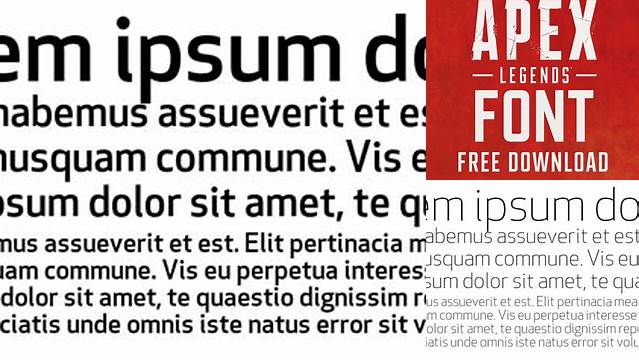
Apex New Medium Font: Free Download & Usage Guide
Are you a design enthusiast or a content creator looking to enhance your projects with a modern and stylish font? Look no further! The Apex New Medium font is a versatile typeface that can add a touch of sophistication and clarity to your work. In this comprehensive guide, we'll dive into everything you need to know about this fantastic font, including where to find an Apex New Medium Font Free Download, its unique characteristics, and how to effectively use it in your various design projects. So, let's get started and discover how this font can elevate your creative endeavors!
What is Apex New Medium Font?
When discussing Apex New Medium font, it's essential to understand its origins and design principles. Apex New Medium is a contemporary sans-serif typeface known for its clean lines, balanced proportions, and excellent readability. Sans-serif fonts, like Apex New Medium, are characterized by the absence of serifs, which are the small decorative strokes at the end of letterforms found in serif fonts like Times New Roman. This gives sans-serif fonts a more modern and minimalist appearance, making them ideal for a wide range of applications, from digital interfaces to print materials.
The Apex New Medium font was carefully crafted to strike a balance between functionality and aesthetics. Its letterforms are designed with precision, ensuring clarity and legibility even at smaller sizes. This makes it a great choice for body text, headlines, and captions. The 'Medium' weight of the font refers to its thickness, which is neither too light nor too bold, providing a versatile middle ground that works well in various contexts. The clean and simple design of Apex New Medium makes it incredibly versatile. It can be used in a variety of projects, from websites and mobile apps to logos and branding materials. Its neutral yet stylish appearance allows it to seamlessly blend into different design styles, whether you're going for a minimalist, modern, or even a more playful look. The font’s balanced design ensures that it doesn’t overpower other elements in your design, but rather complements them, creating a cohesive and visually appealing final product. This adaptability is one of the key reasons why Apex New Medium has become a popular choice among designers and content creators alike. Its ability to maintain clarity and readability across different platforms and sizes further enhances its appeal, making it a reliable option for projects ranging from large-scale print materials to small-screen digital displays. Ultimately, Apex New Medium's blend of modern aesthetics and functional design makes it a standout choice for anyone looking to elevate their visual communication.
Key Characteristics of Apex New Medium
To truly appreciate the Apex New Medium font, it's important to understand its key characteristics. First and foremost, the font boasts exceptional readability. The letterforms are meticulously designed to ensure each character is distinct and easily recognizable, even at smaller sizes. This makes it a fantastic choice for body text, where legibility is paramount. The spacing between letters and words is also carefully considered, contributing to a comfortable reading experience. Another defining feature of Apex New Medium is its clean and modern aesthetic. The absence of serifs gives it a contemporary feel, making it well-suited for designs that aim to convey a sense of sophistication and simplicity. The font’s clean lines and uncluttered appearance make it a versatile option that can seamlessly integrate into various design styles. It's equally at home in minimalist designs as it is in more complex layouts, offering a level of flexibility that many other fonts lack. Furthermore, the Medium weight of Apex New Medium strikes a perfect balance between being too light and too bold. This ensures that the font is prominent enough to make an impact without being overwhelming. The consistent stroke thickness throughout the letterforms adds to its visual harmony, making it a pleasure to look at and work with. This balance is particularly useful in designs where you need a font that can stand out without dominating the overall composition. In addition to its aesthetic qualities, Apex New Medium is also known for its versatility across different platforms and mediums. It performs exceptionally well both in print and on digital screens, making it a reliable choice for a wide range of projects. Whether you're designing a website, creating marketing materials, or crafting a presentation, Apex New Medium will maintain its clarity and visual appeal. This cross-platform compatibility is a significant advantage, ensuring that your designs look consistent and professional regardless of the medium.
How to Use Apex New Medium Font in Your Projects
Once you've secured your Apex New Medium font (or a suitable alternative), the next step is to put it to good use! This versatile font can enhance a wide range of projects, from website design to branding materials. Understanding how to effectively incorporate it into your work will help you create visually appealing and professional designs. One of the most common applications for Apex New Medium is in web design. Its clean lines and excellent readability make it an ideal choice for both headings and body text. Using Apex New Medium for your website’s content can create a modern and user-friendly experience for your visitors. The font's clarity ensures that your text is easy to read on screens of all sizes, which is crucial for maintaining engagement and reducing bounce rates. When using Apex New Medium on a website, consider pairing it with other fonts to create visual contrast and hierarchy. For example, you might use Apex New Medium for headings and subheadings, and then choose a different font for body text. Alternatively, you could use different weights of Apex New Medium (such as bold or light) to create visual interest and structure. Another area where Apex New Medium shines is in branding. Its professional and modern aesthetic makes it well-suited for logos, business cards, and other marketing materials. A consistent use of Apex New Medium across your branding can help create a cohesive and recognizable brand identity. When designing a logo, the simplicity and clarity of Apex New Medium can help ensure that your logo is legible and memorable. For business cards and letterheads, the font’s readability will ensure that your contact information is easily accessible. In addition to web design and branding, Apex New Medium can also be used effectively in print materials. Its clean design works well in brochures, flyers, posters, and even books. The font's legibility makes it a great choice for lengthy documents, ensuring that readers can comfortably engage with your content. When using Apex New Medium in print, pay attention to the font size and spacing. Choosing the right size and ensuring adequate spacing between lines and letters will enhance readability and create a visually appealing layout. Ultimately, the key to using Apex New Medium effectively is to leverage its versatility and clarity. Whether you're designing a website, creating branding materials, or working on a print project, this font can help you achieve a polished and professional look. By understanding its strengths and experimenting with different applications, you can unlock the full potential of Apex New Medium and elevate your designs.
Tips for Effective Font Usage
To truly master the art of typography and make the most of fonts like Apex New Medium font, it’s essential to understand some key principles of effective font usage. These tips can help you create designs that are not only visually appealing but also highly functional and easy to read. One of the most fundamental tips is to limit the number of fonts you use in a single project. A general rule of thumb is to stick to two or three fonts at most. Using too many fonts can create a cluttered and confusing design, detracting from your message. Instead, focus on selecting a few fonts that complement each other and using them consistently throughout your project. Another crucial aspect of font usage is hierarchy. Font hierarchy refers to the way you use different font sizes, weights, and styles to create a visual structure and guide the reader's eye through your design. Using larger and bolder fonts for headings and subheadings, and smaller fonts for body text, can help organize your content and make it easier to digest. Consistency is another key element of effective font usage. Once you've chosen your fonts and established a hierarchy, it’s important to use them consistently throughout your project. This creates a sense of unity and professionalism. Avoid randomly switching fonts or styles, as this can make your design look disjointed. Legibility should always be a top priority when choosing and using fonts. No matter how beautiful a font may be, if it’s difficult to read, it’s not a good choice. Opt for fonts that are clear and easy to read, especially for body text. Consider factors such as font size, line height, and letter spacing to ensure optimal readability. Kerning and tracking are two important typographic adjustments that can significantly impact the appearance of your text. Kerning refers to the spacing between individual letters, while tracking refers to the overall spacing between all letters in a word or line. Adjusting these settings can improve the legibility and visual appeal of your text. When pairing fonts, look for fonts that complement each other in terms of style and weight. For example, a clean sans-serif font like Apex New Medium might pair well with a slightly more decorative serif font. Experiment with different combinations to find what works best for your design. Finally, always consider your audience and the message you're trying to convey when choosing fonts. The fonts you use should align with your brand’s personality and the tone of your content. A formal or professional project might call for a different font than a more casual or creative project. By following these tips, you can ensure that you're using fonts effectively and creating designs that are both visually stunning and highly functional.
In conclusion, the Apex New Medium font is a fantastic choice for anyone looking to add a touch of modern sophistication to their designs. Its clean lines, excellent readability, and versatility make it suitable for a wide range of projects, from websites and branding materials to print publications. While finding an Apex New Medium Font Free Download may require some research, the effort is well worth it. By exploring reputable font foundries and design resources, you can discover this gem or similar high-quality typefaces that will elevate your creative endeavors. Remember to always pay attention to licensing terms to ensure you're using fonts legally and ethically. And once you've secured your font, take the time to learn how to use it effectively. Experiment with different font pairings, sizes, and styles to create visually appealing and functional designs. By following the tips and guidelines outlined in this article, you can unlock the full potential of Apex New Medium and other fonts, and take your designs to the next level. So, go ahead and explore the world of typography, and let your creativity flourish!